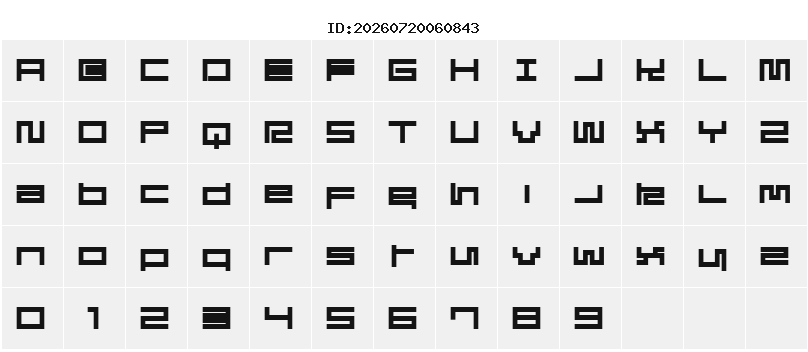
• Font Name: ES
• Full Font Name: ES Bold
About ES.ttf
ES.ttf is a modern, elegant sans-serif font designed for ultimate readability and visual harmony. Perfect for branding, headlines, web design, and print materials.